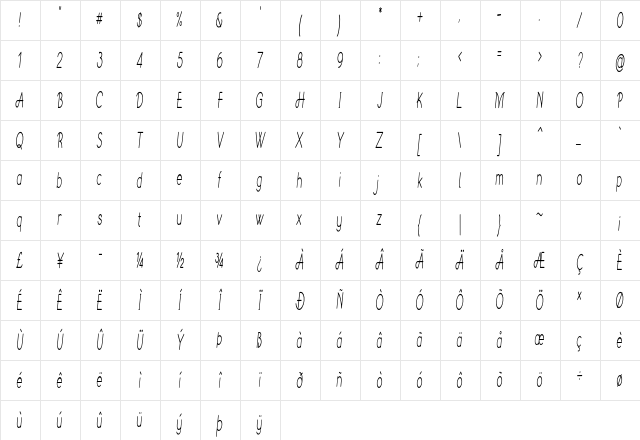
Puppy Extra-condensed Italic
Style: Extra-condensed Italic
Design Context for Puppy
Puppy is a composed and adaptable typeface that performs quietly and consistently across a wide range of design contexts. The slanted form adds forward momentum and visual energy. Its narrow stance lets it pack a punch even in space-constrained designs.
Pro Tip: Use Puppy for emphasis, pull quotes, and subheadings where its slanted energy can add rhythm to the layout.